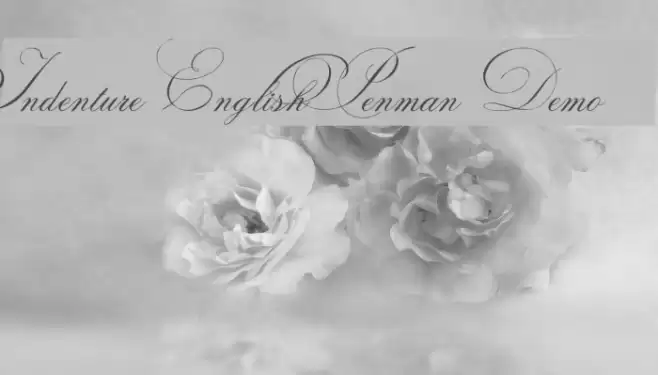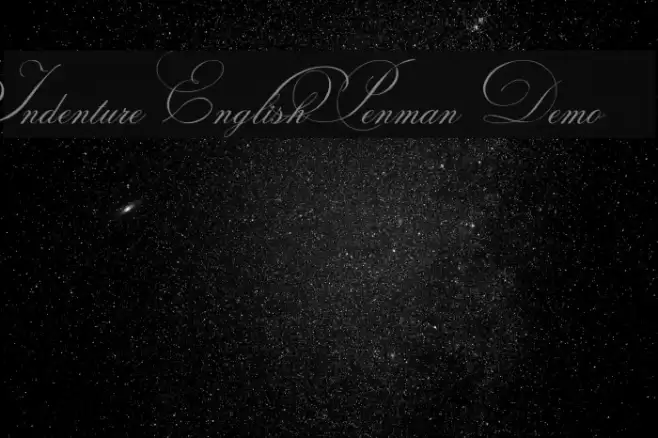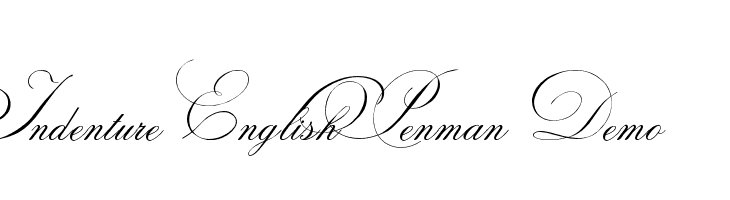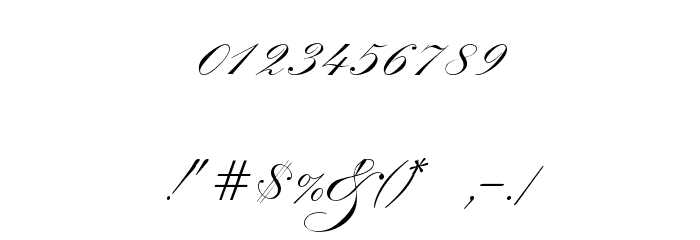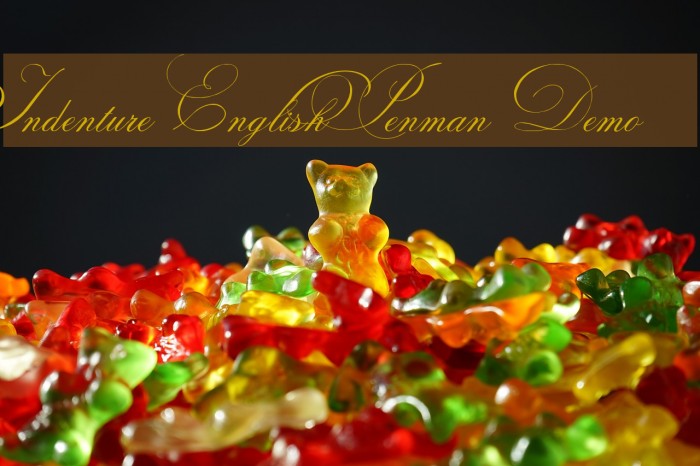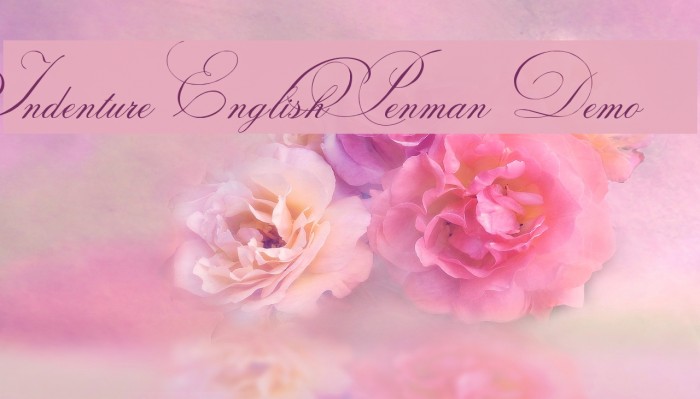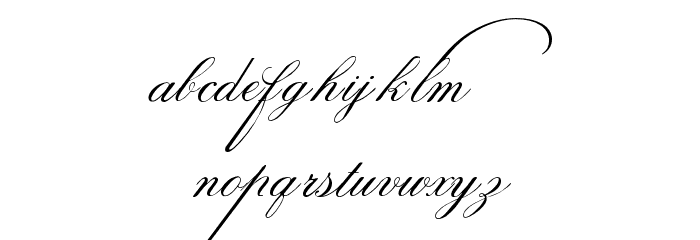
Indenture English Penman Demo Font
Indenture English Penman Demo Description
This elegant script font is characterized by its intricate and flowing design, reminiscent of traditional penmanship. The uppercase letters are highly decorative, featuring elaborate swirls and flourishes that give the font a sophisticated and ornate appearance. The lowercase letters maintain a more restrained elegance, with smooth, flowing lines that enhance readability while preserving the overall decorative style. The numerals and special characters are consistent with the font's script nature, offering a cohesive look across all characters. This font is ideal for projects that require a touch of classic elegance and refinement.
An elegant script font with intricate swirls and flourishes from Uncategorized fonts.
- Proposed Projects: Ideal for wedding invitations, formal event programs, luxury branding, and decorative certificates.
- Overall Style: Classic
- Use Case: Logos, Invitations, Decorative text